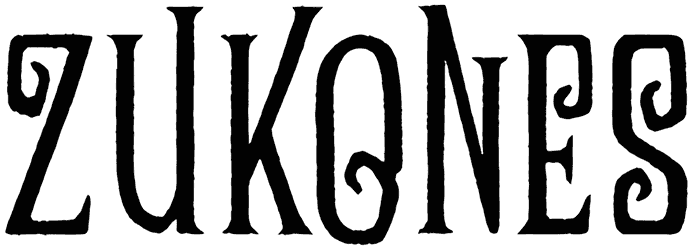
Zukones Font
Zukones is a cute Halloween font with curly tails that comes with a full set of characters. It’s ideal when you want to inject a mysterious and spooky feel into your design, but in a playful way.
The cartoonish style of this witch font makes it suitable for stuff related to kids. You can also use it for fantasy movie posters, flyers, scary books, Halloween party invitations, and apparel prints.